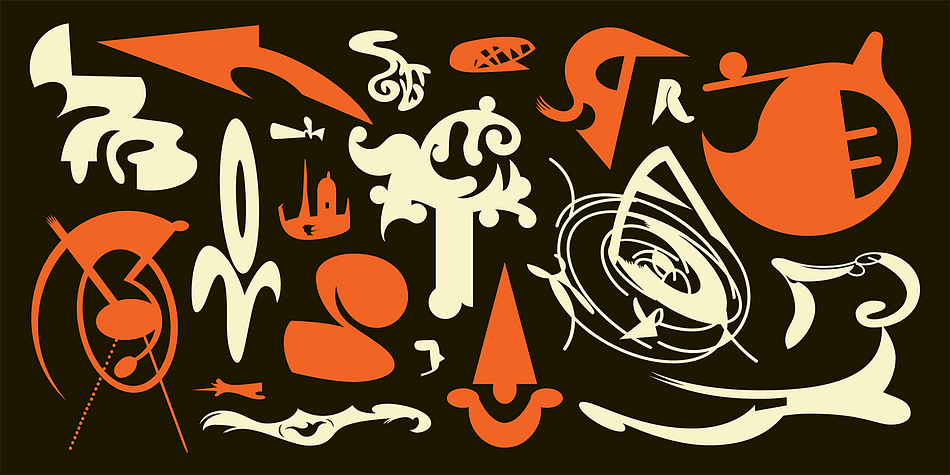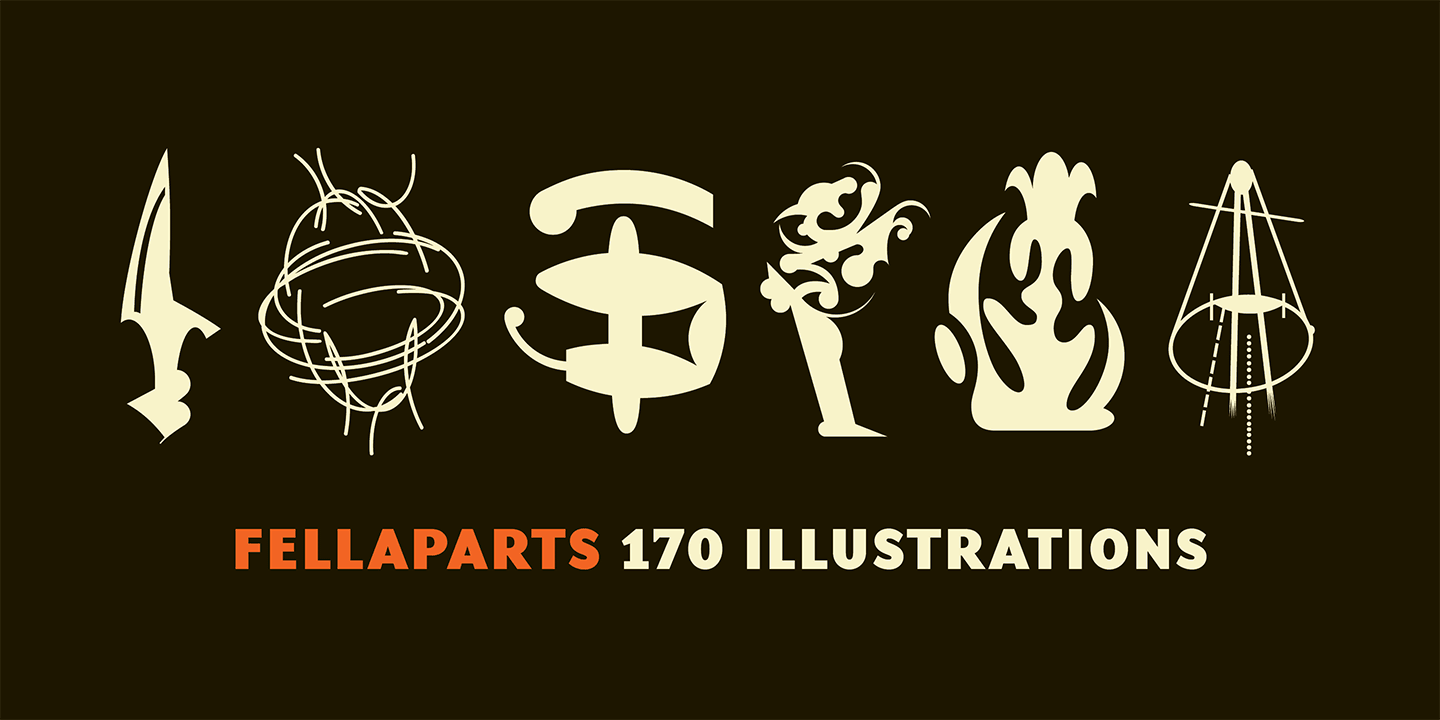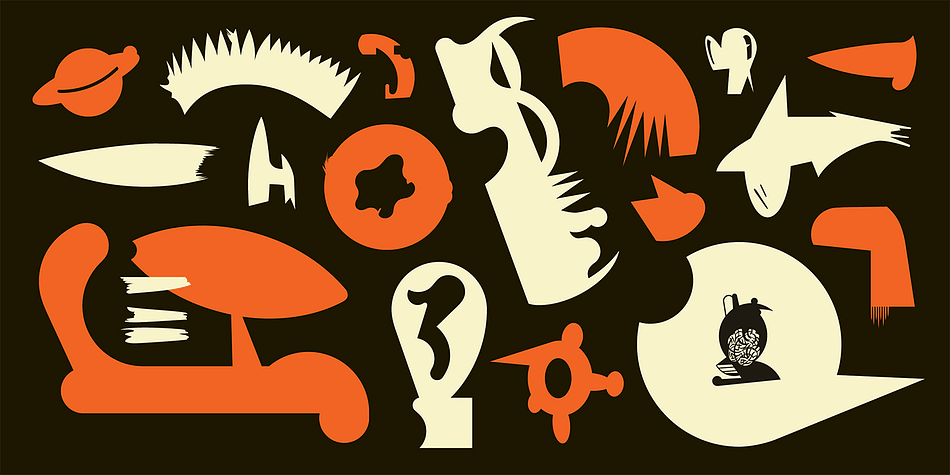
Designed by Edward Fella, FellaParts is a dingbat font family. This typeface has two styles and was published by Emigre.
Create patterns and textures by repeating and combining various FellaParts illustrations. Using negative leading (line spacing that is smaller than the given point size) and force justified setting overlaps the images and creates a dense effect.